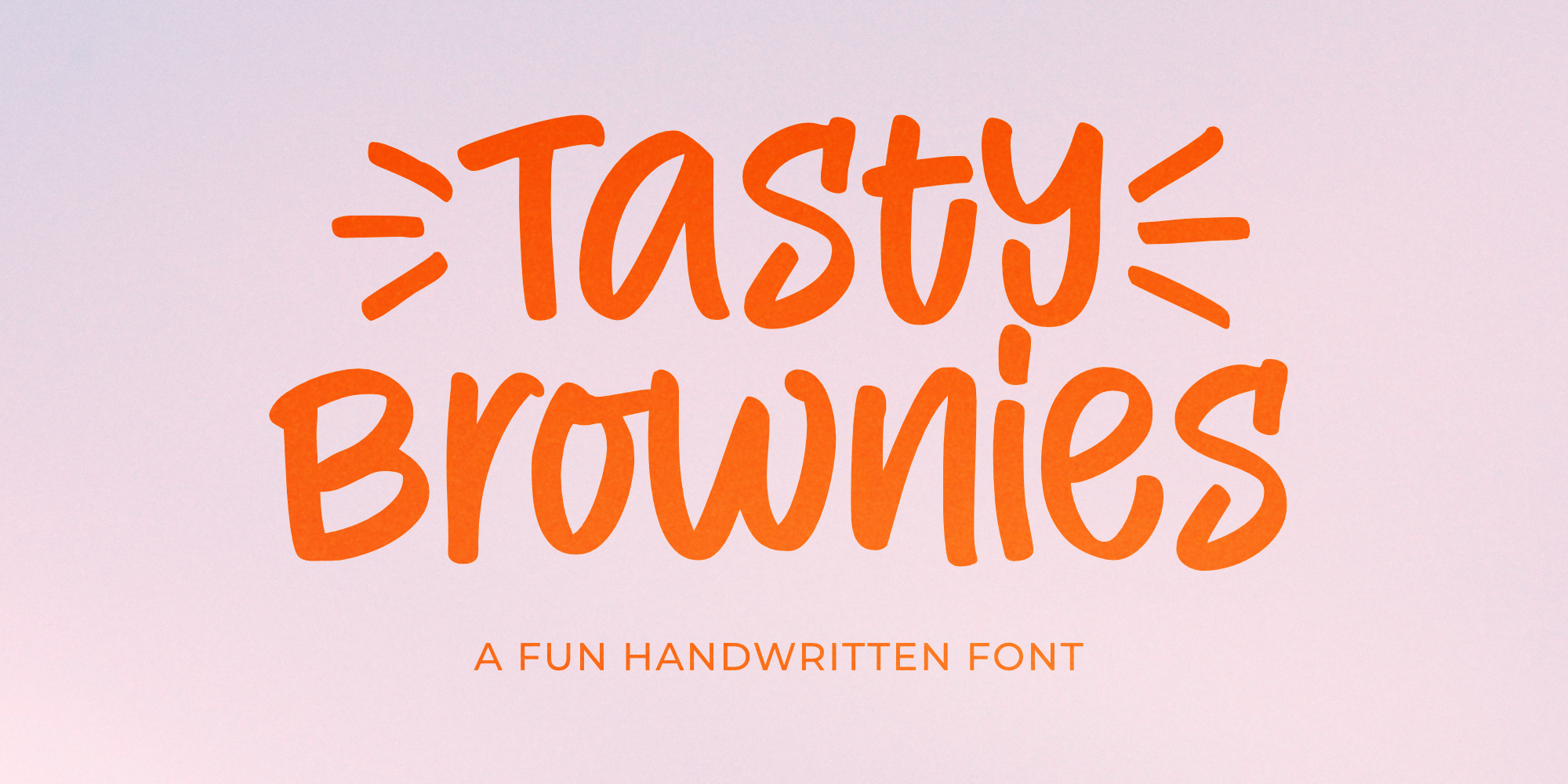
Tasty Brownies Font is perfect for cozy bakery branding, chocolate shop signage, dessert café menus, sweet treat packaging, homemade goods labels, comfort food marketing, family recipe books, warm kitchen décor, artisanal confectionery, and delightful projects that celebrate the irresistible comfort and mouthwatering appeal of freshly baked brownies with heartwarming culinary charm.
What makes Tasty Brownies Font so exciting is its delicious embodiment of comfort food warmth through rich, inviting letterforms that evoke the cozy satisfaction of home baking and sweet indulgence. This typeface captures the essence of chocolate comfort and kitchen happiness, featuring soft curves and welcoming proportions that suggest melted chocolate and grandmother's kitchen while maintaining excellent readability for contemporary food service applications that require both appetite appeal and functionality.
Tasty Brownies Font family includes multiple delicious variations: Regular, Bold, Light, Fudgy, Sweet, Rich, Warm, and Comfort versions. Each style maintains the font's inherent comfort food character while offering different levels of sweetness and culinary appeal, enabling designers to create authentic bakery aesthetics that resonate with customers seeking comfort food experiences and homemade quality indulgence.
The mouthwatering appeal of Tasty Brownies Font Free Download makes it exceptionally valuable for food service and confectionery industries focused on comfort desserts. This font successfully communicates warmth and delicious satisfaction, making it perfect for bakeries and dessert shops that want to evoke feelings of home comfort and sweet indulgence. Its inviting character works beautifully across both digital menu platforms and artisanal packaging materials, while its distinctive comfort food aesthetic creates immediate appetite appeal among audiences who crave homemade sweetness and comforting dessert experiences.